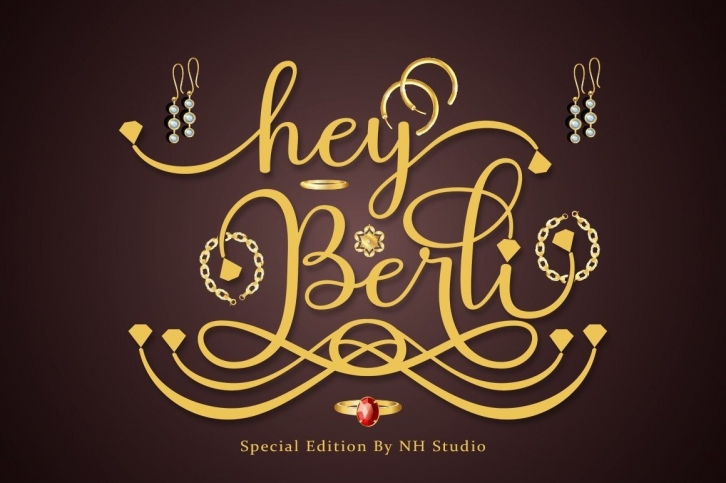
Hey Berli is a script font filled with contemporary, sophisticated accents. It is perfect for branding, wedding invites, tagline, cards, and maybe for labels and logos. This font is PUA encoded, which means you can access all of the glyphs and swashes with ease!